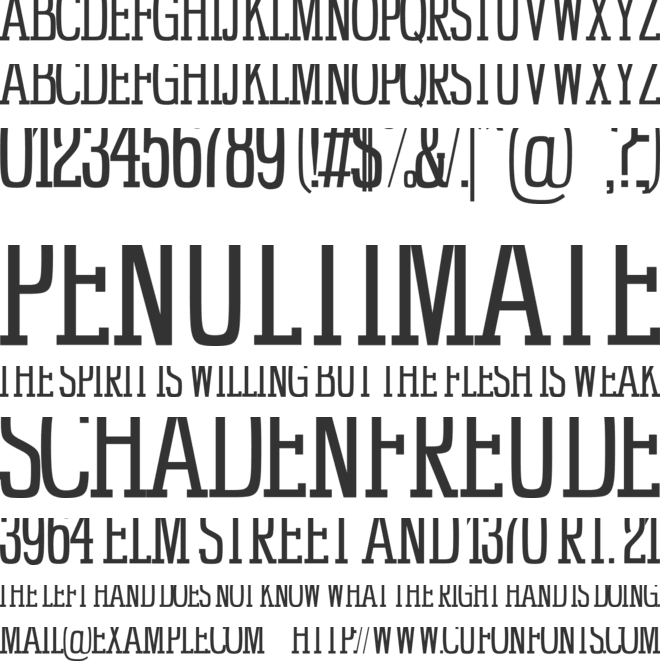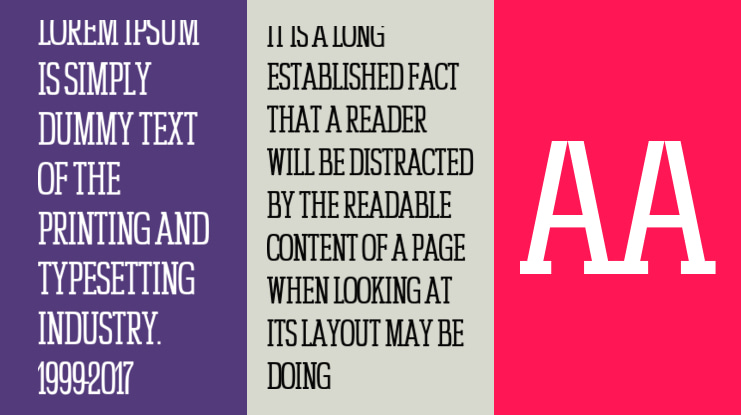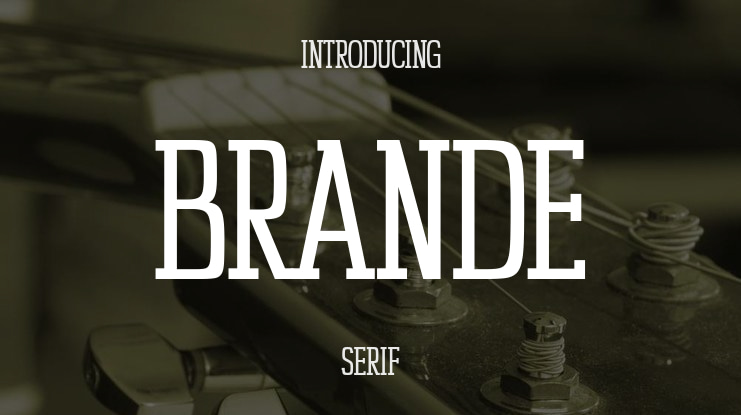
🎨 Font Name: Brande by Minimalist Art Studio
🎨 Font description: Brande is a bold slab serif with multilingual support and 600+ glyphs—perfect for vintage branding, editorial layouts, and minimalist packaging.